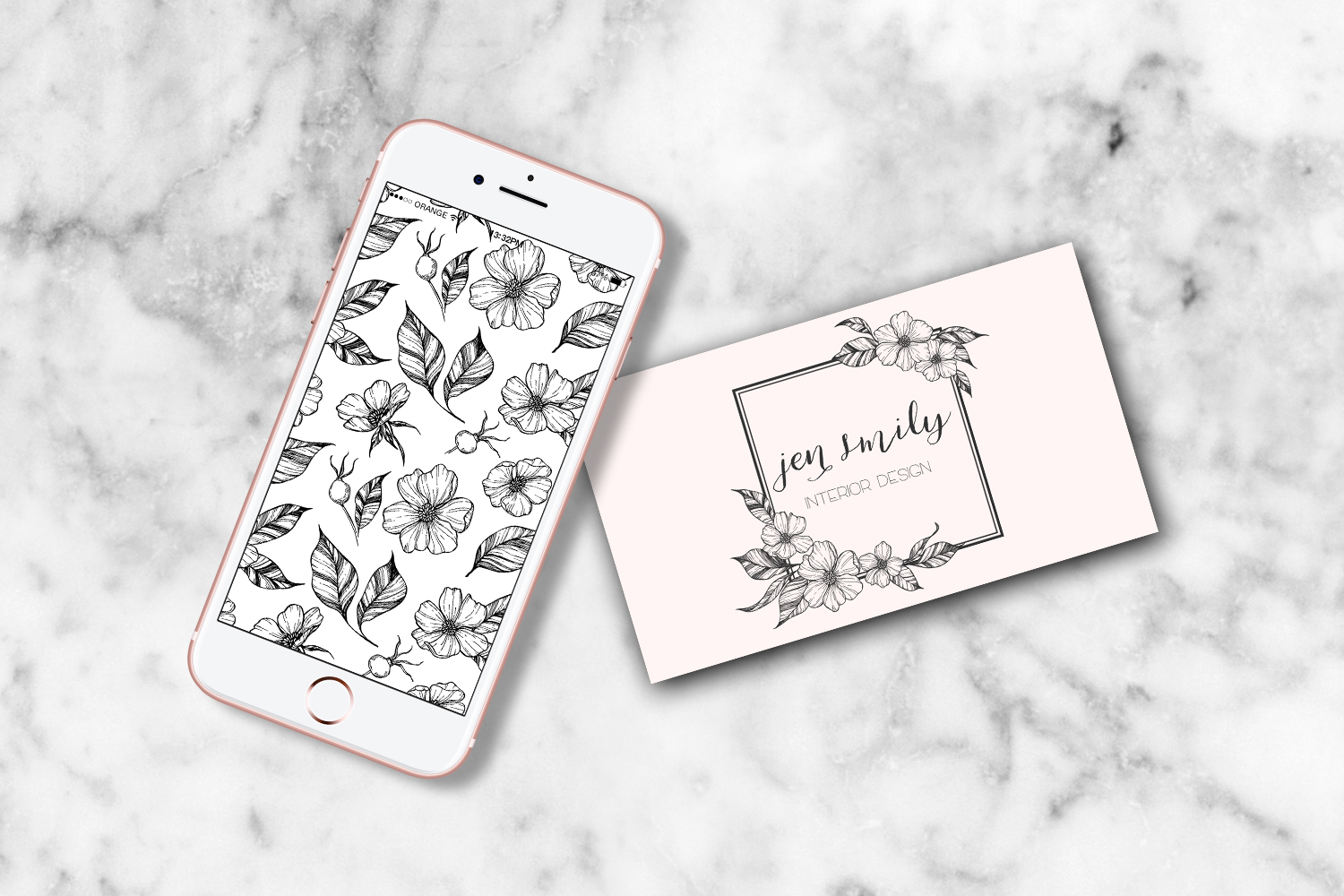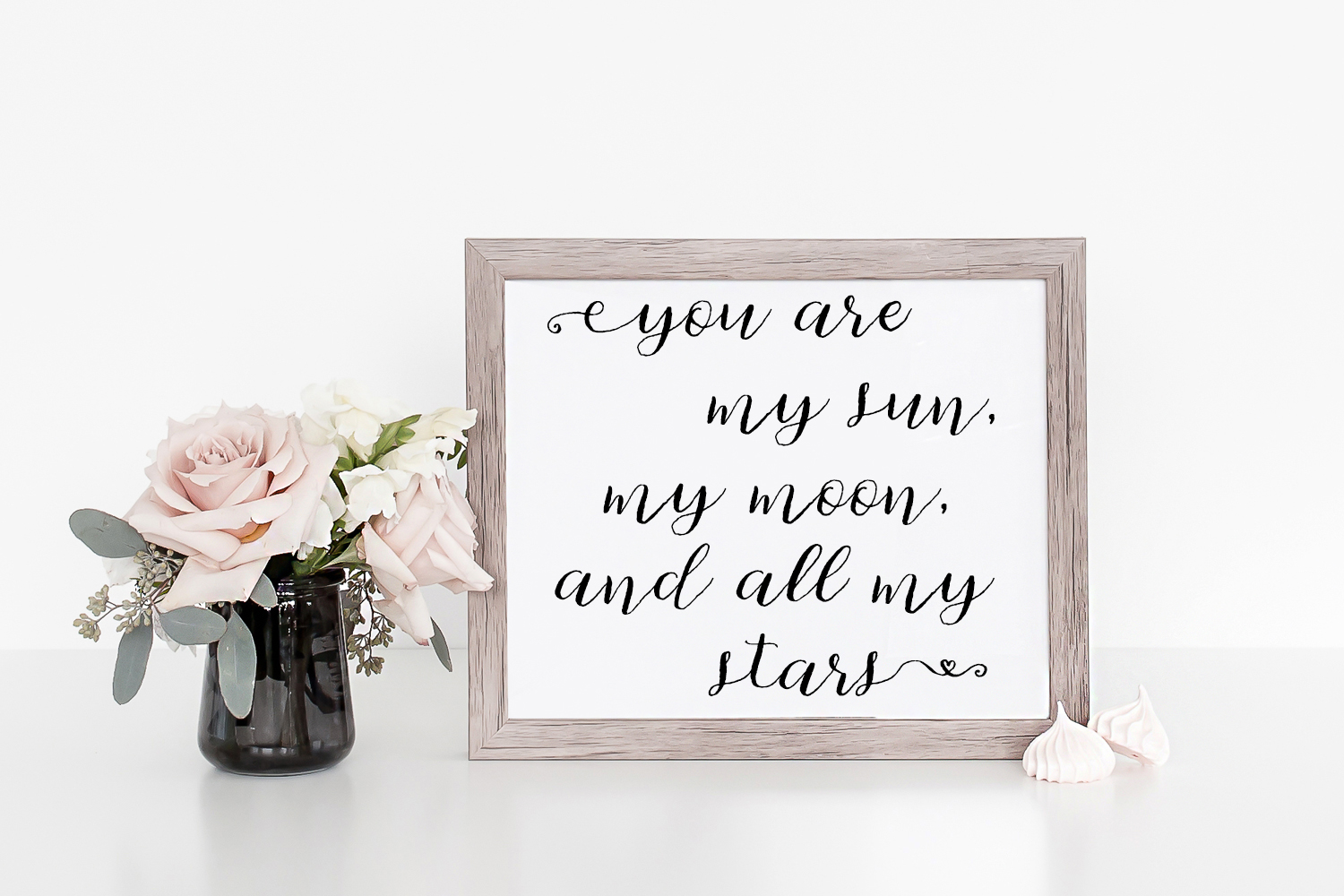
Cherokee Rose Font
db-ku.com - Script & Handwritten -- Cherokee Rose Script, a beautiful, romantic hand-lettered calligraphy font, named after Georgia’s state flower.